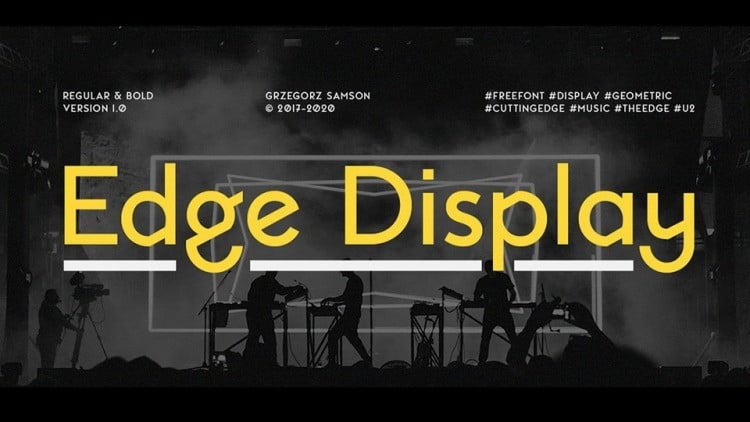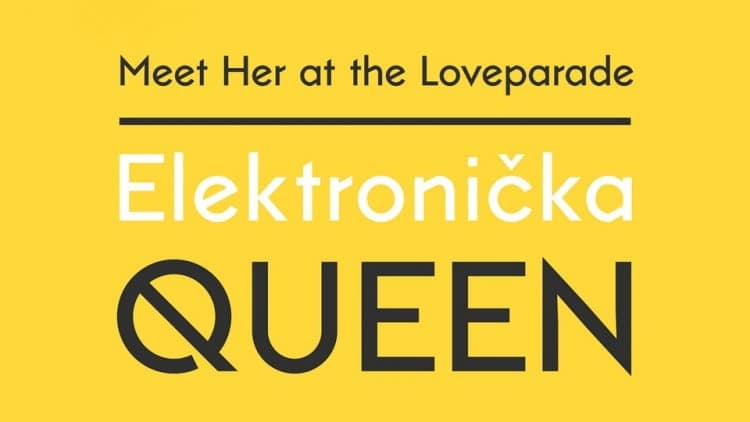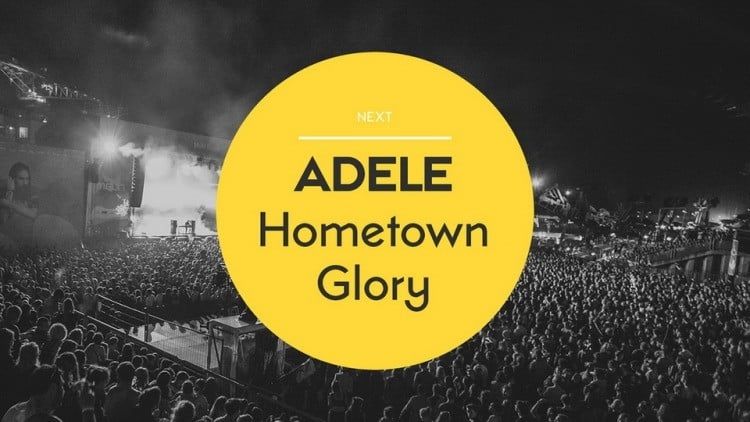
Edge Display Font is a sans serif display typeface ready to convey your message. It’s a geometric font family created by Grzegorz Samson that includes Regular and Bold weights. It was inspired by The Edge from U2 and this typeface is perfect for music stuff: posters, band logos and many more.